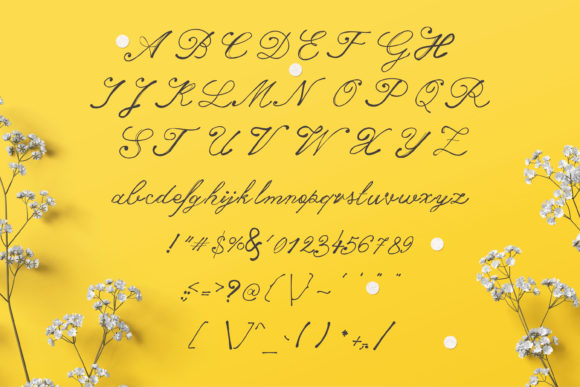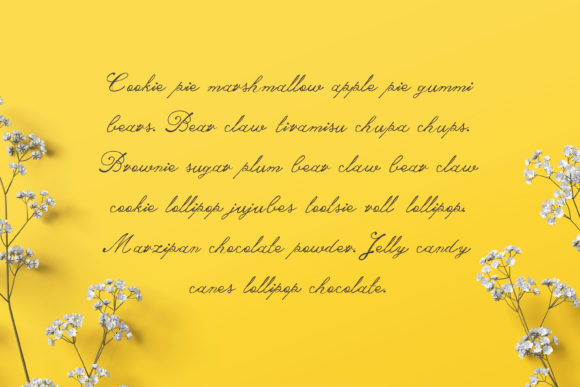
Introducing Abepka Font: The Sweet and Soft Hand-Lettered Script Font for Creative Projects
Are you a designer, crafter, or DIY enthusiast looking for a font that can add a touch of sweetness and elegance to your creative projects? Look no further than Abepka Font! This beautiful, hand-lettered script font is perfect for a wide range of applications, from Instagram graphics and social media posts to calligraphy scripts and DIY projects.
What is Abepka Font?
Abepka is a sweet, soft hand-lettered script font that is designed to turn any creative idea into a true piece of art. With its delicate and elegant lettering style, Abepka is perfect for adding a touch of sophistication and whimsy to your designs. Whether you’re looking to create stunning Instagram graphics, beautiful calligraphy scripts, or unique DIY projects, Abepka is the perfect font for the job.
Key Features of Abepka Font
So, what makes Abepka Font so special? Here are just a few of its key features:
- Hand-lettered script font: Abepka is a carefully crafted, hand-lettered script font that is designed to look like it was written with love and care.
- Sweet and soft lettering style: The lettering style of Abepka is sweet, soft, and delicate, making it perfect for creating beautiful and elegant designs.
- Perfect for Instagram and social media: Abepka is a great font for creating stunning Instagram graphics and social media posts that are sure to grab attention.
- Great for calligraphy scripts and DIY projects: Abepka is also perfect for creating beautiful calligraphy scripts and unique DIY projects, such as handmade cards, invitations, and decorations.
How to Use Abepka Font in Your Creative Projects
Abepka Font is easy to use and can be incorporated into a wide range of creative projects. Here are a few ideas to get you started:
- Instagram graphics: Use Abepka to create stunning Instagram graphics, such as quotes, sayings, and inspirational messages.
- Calligraphy scripts: Use Abepka to create beautiful calligraphy scripts for special occasions, such as weddings, birthdays, and holidays.
- DIY projects: Use Abepka to add a touch of elegance and sophistication to your DIY projects, such as handmade cards, invitations, and decorations.
- Branding and packaging: Use Abepka to create beautiful branding and packaging materials, such as logos, labels, and business cards.
Why Choose Abepka Font?
So, why should you choose Abepka Font for your creative projects? Here are just a few reasons:
- Unique and elegant lettering style: Abepka has a unique and elegant lettering style that is sure to make your designs stand out.
- Easy to use: Abepka is easy to use and can be incorporated into a wide range of creative projects.
- Perfect for a wide range of applications: Abepka is perfect for a wide range of applications, from Instagram graphics and social media posts to calligraphy scripts and DIY projects.
| Font Name | Abepka Font |
| Author | DIGI Potwor |
In conclusion, Abepka Font is a beautiful, hand-lettered script font that is perfect for adding a touch of sweetness and elegance to your creative projects. With its delicate and elegant lettering style, Abepka is perfect for a wide range of applications, from Instagram graphics and social media posts to calligraphy scripts and DIY projects. So why wait? Download Abepka Font today and start turning your creative ideas into true pieces of art!